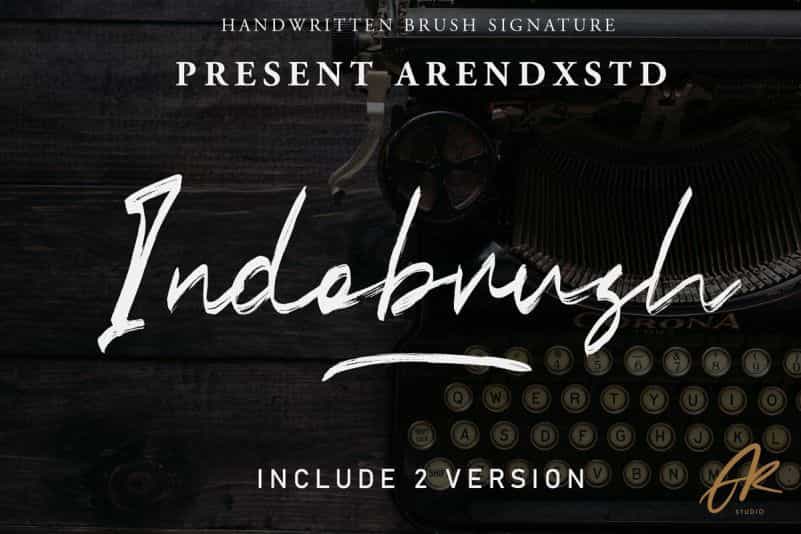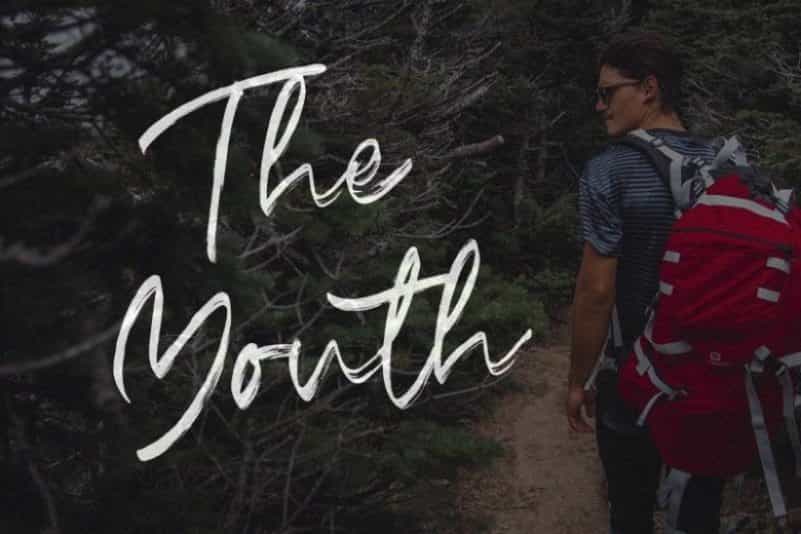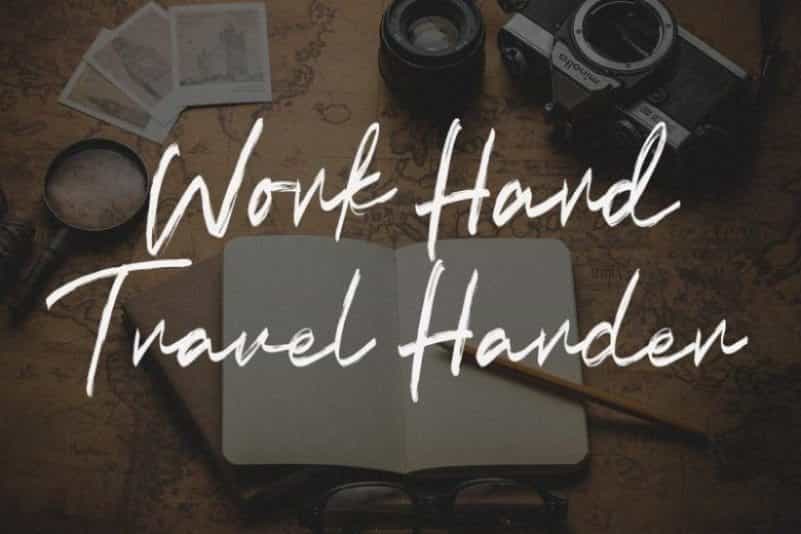
Indobrush is a contemporary brush script font. This nice brush script typeface can be used in many projects – for example your lovely logo, blog header, wedding invitations, prints, presentations or even book covers.